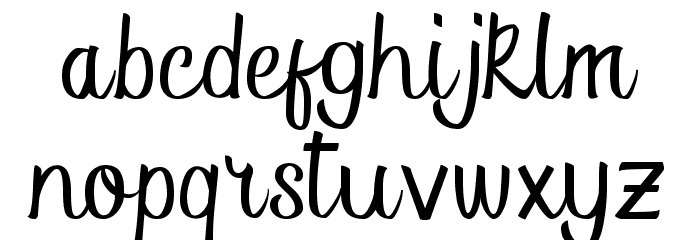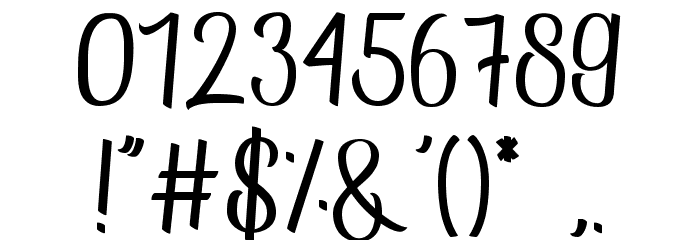
Killer Black Font
This font features a bold and expressive script style with a playful and dynamic appearance. The characters are crafted with a flowing, cursive design that gives off a lively and energetic vibe. The uppercase letters are slightly more elaborate, with swashes and loops that add a touch of elegance. The lowercase letters maintain a consistent flow, complementing the uppercase with their smooth curves and rounded forms. The numerals are clear and legible, matching the overall style with their rounded and slightly whimsical design. Special characters are included, maintaining the same playful and bold aesthetic. This font is ideal for projects that require a touch of personality and flair.
A bold, expressive script font with a playful and dynamic style.
- Proposed Projects: Perfect for greeting cards, invitations, branding, and social media graphics.
- Category: Script
- Use Case: Logos, Headlines, Invitations